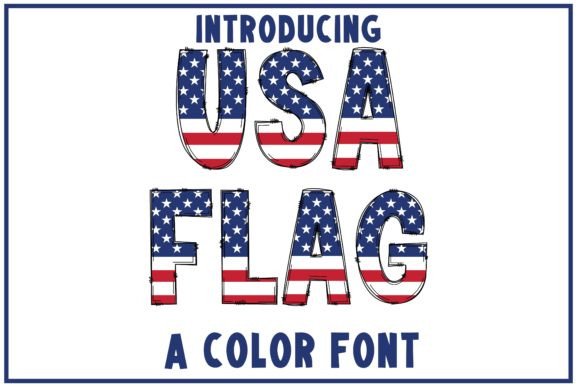
Looking for a way to add a fun, patriotic twist to your designs? Look no further than the USA Flag Font from Color Studio! This unique and eye-catching font is the perfect addition to any project that needs a touch of American pride.
The USA Flag Font is more than just a cool font - it's a colorful and creative way to show your love for your country. With playful characters and bold, bright colors, this font is perfect for everything from stickers and mugs to t-shirts and ornaments.
Whether you're looking to create event invitations or cards for Independence Day, or simply want to add a touch of patriotism to your designs, the USA Flag Font is the perfect choice. And with its easy-to-use design, it's simple to incorporate into any project.